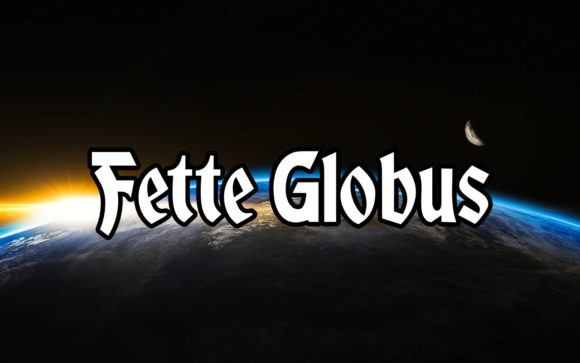
Fette Globus: The Bold Serif That Commands Attention
When you're crafting a brand identity or designing a headline that needs to stop someone mid-scroll, the typeface you choose carries enormous weight. Fette Globus is a premium display font that understands this assignment. Created by type designer Peter Wiegel, this typeface brings a distinctive blend of classical serif structure and contemporary boldness that makes it genuinely useful across a surprising range of projects.
What strikes you first about Fette Globus is its confident, well-balanced letterforms. The characters carry substantial visual weight without feeling clunky or overbearing. There's a refined quality to the serifs and stroke contrasts that suggests old-world craftsmanship while still reading as fresh and relevant. The overall personality sits somewhere between authoritative and approachable—serious enough for professional contexts, yet warm enough to feel inviting rather than cold.
Where Fette Globus Truly Shines
As a display font, Fette Globus naturally excels in situations where text needs to make an immediate visual impact. Think magazine covers, event posters, book titles, and hero sections on websites. The letterforms have enough detail and character to hold attention at large sizes, which is exactly what you want from a typeface designed for prominent placement.
For logo design, this font offers a compelling foundation. Its balanced proportions and distinctive personality give logos a sense of established credibility. A boutique coffee roaster, an independent publishing house, or a creative consultancy could build an entire visual identity around Fette Globus and project exactly the right kind of professional confidence. The key is that the font doesn't try to be everything—it has a clear point of view, and that specificity is what makes it memorable.
Packaging design is another natural fit. When you're standing in a store aisle competing for a shopper's attention, typography has roughly two seconds to communicate quality and character. Fette Globus brings enough gravitas to suggest premium positioning while remaining legible and distinctive. Wine labels, artisan food products, cosmetics, and specialty goods all benefit from a typeface that conveys craftsmanship without pretension.
Digital Applications Worth Exploring
On the web, display fonts serve a specific purpose: they set the tone for everything that follows. Using Fette Globus for website headers, landing page headlines, and call-to-action statements creates an immediate visual hierarchy that guides visitors through your content. The font pairs particularly well with clean sans serif fonts for body text—think something like a geometric sans or a humanist sans serif that won't compete for attention but will complement the display font's personality.
Social media graphics benefit enormously from bold, distinctive typography. When your content appears in a crowded feed alongside hundreds of other posts, a typeface with genuine character helps your brand become visually recognizable. Fette Globus works well for quote graphics, announcement posts, promotional banners, and branded content templates. Its strong presence means you don't need elaborate design elements to create something that looks polished and intentional.
Making Smart Font Pairing Decisions
One of the most practical aspects of working with any display typeface is understanding how it interacts with other fonts in your design system. Fette Globus has enough personality to anchor a layout, but pairing it thoughtfully is essential for maintaining readability and visual balance across different content types.
A reliable approach is combining Fette Globus with a straightforward sans serif for longer text passages. The contrast between the display font's serif details and the clean simplicity of a sans serif creates natural visual hierarchy without requiring additional design tricks. For editorial design—think newsletters, blog layouts, magazine spreads—this combination gives you headline impact alongside comfortable reading for body copy.
If your project leans more traditional or literary, pairing Fette Globus with a complementary serif font for body text can work beautifully. The trick here is choosing a text serif that shares some proportional DNA with the display font but remains optimized for smaller sizes. You want the two typefaces to feel related but serve distinctly different functions.
Evaluating Whether This Font Fits Your Project
Before committing to any creative font for a project, it's worth running through a few practical checkpoints. First, consider the tone you're trying to establish. Fette Globus communicates confidence, quality, and a touch of classic sophistication. If your brand voice is playful, irreverent, or ultra-minimalist, this particular typeface might not align with your personality—and that's completely fine. Not every font works for every project, and recognizing that early saves considerable revision time.
Second, test the font at the actual sizes you'll be using. Display fonts are designed to perform at larger scales, so evaluate how Fette Globus reads at your intended headline sizes, on both screen and print if applicable. Check the spacing between characters, the weight of the strokes, and how individual letter combinations look in your specific content.
Third, review the full character set and any included styles. Understanding what's available—alternate characters, ligatures, extended language support, weight variations—helps you make informed decisions about versatility and long-term usability across different projects and applications.
Building Brand Recognition Through Thoughtful Typography
Consistency is the quiet engine behind effective brand identity. When you select a typeface like Fette Globus and apply it consistently across your touchpoints—website, social media, print materials, packaging, presentations—you create a visual thread that audiences begin to associate with your brand before they even read the words.
This recognition compounds over time. Think about how quickly you identify certain brands just from a fragment of their typography. That kind of instant recognition doesn't happen by accident. It comes from deliberate font selection and disciplined application. Fette Globus provides enough distinctiveness to become genuinely associated with your brand while remaining versatile enough to work across different contexts and content types.
For entrepreneurs and small business owners building their first professional identity, investing in a quality commercial font like this one sends a subtle but meaningful signal. It suggests that you take your visual presentation seriously, which influences how potential customers perceive the quality of your products or services. Typography is one of those details that most people can't specifically articulate noticing, but absolutely register on a subconscious level.
Licensing and Practical Considerations
Before using any commercial font in a client project or commercial application, verify the licensing terms carefully. Understanding whether the license covers web embedding, print production, merchandise, and digital applications protects you legally and ensures you're using design assets appropriately. Most premium font licenses are straightforward, but the specifics matter—especially if you're creating work for clients or producing items for sale.
Keep your font files organized and maintain records of your licenses. As your design library grows, having clear documentation of what you own and where you can use it prevents headaches down the road and keeps your workflow efficient.
Fette Globus represents a solid addition to any designer's toolkit—not because it solves every typographic challenge, but because it solves specific ones exceptionally well. When your project calls for a bold serif display font with genuine character and professional polish, this typeface delivers exactly that.